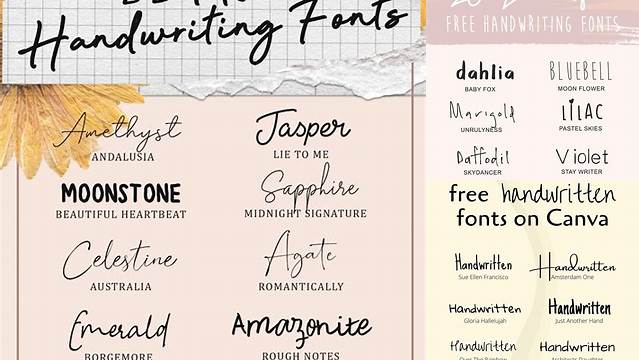
Free Hand-Written Fonts: Download Your Favorites Now!
Hey guys! Are you looking to add a personal touch to your designs? Want to ditch those boring, generic fonts and inject some personality into your projects? Well, you're in the right place! Today, we're diving headfirst into the wonderful world of free hand-written fonts. I'm talking about those fonts that perfectly mimic real handwriting, giving your work that authentic, human feel. From elegant scripts to playful doodles, there's a hand-written font out there for every project imaginable. And the best part? I'm going to show you where you can download free font tulisan tangan so you can start using them immediately! So, buckle up, because we're about to embark on a font-tastic adventure!
Unveiling the Allure of Hand-Written Fonts
Okay, so why are hand-written fonts so darn popular? What's the big deal? Well, think about it. In a world dominated by digital everything, there's something undeniably appealing about the human touch. It's a way to connect with your audience on a deeper level, making your designs feel more relatable and approachable. A hand-written font can instantly transform a project from cold and corporate to warm and inviting. Download free font tulisan tangan can add a unique and personal flair to any design. Hand-written fonts have this amazing ability to inject personality into your work. They can convey a sense of authenticity, creativity, and even a little bit of playfulness. It's like adding a signature to your designs, making them feel more unique and memorable. It is perfect for invitations, posters, social media graphics, and even websites, it really elevates the design aesthetic. These fonts are not just about aesthetics; they are also a powerful tool for storytelling. It helps to emphasize the message. I'm talking about fonts that mimic the flow, the imperfections, and the individuality of real handwriting. A hand-written font can make a design feel less formal and more approachable. So, whether you're crafting a wedding invitation, designing a logo, or creating social media content, hand-written fonts can be your secret weapon for making your work stand out.
Hand-written fonts also offer a versatility that's hard to match. There's a hand-written font style for any project. From elegant calligraphy styles to bold and quirky fonts. These fonts are also incredibly versatile. You can use them in various ways. They pair really well with other fonts, creating a balanced and visually appealing design. It allows you to create a visual style that is both unique and attractive. The options are endless!
The Benefits of Using Hand-Written Fonts
So, you know what hand-written fonts are, but why should you use them? Well, let me tell you: download free font tulisan tangan unlocks a ton of advantages! First, these fonts enhance your design's personality. They add a sense of character that is difficult to achieve with standard fonts. They’re more human-friendly. A handwritten font adds a personal touch to a design. It can convey warmth and friendliness, making your audience feel more connected to your message. Then we have readability. While some handwriting fonts are more decorative than others, many are specifically designed for readability, making your message clear and easy to understand. Not only do they look great, but they are effective as well. When a design looks good and is easy to read, it is naturally more effective.
Let's not forget about visual appeal! Hand-written fonts have a unique visual appeal. They create designs that are attention-grabbing. It’s easy to be more artistic using handwriting fonts. You can use them to create visually attractive materials. The best thing about it is that they're accessible to everyone. You can download free font tulisan tangan that makes them a budget-friendly way to add value and style to any project.
Exploring Different Styles of Hand-Written Fonts
Alright, let's get into the fun part: the different styles of hand-written fonts you can use. The world of hand-written fonts is vast and varied, offering something for every taste and project. From elegant scripts to playful doodles, here's a breakdown of some popular styles to get you started:
First, we have elegant scripts. These fonts are perfect for invitations, announcements, and anything that requires a touch of sophistication. They are the go-to choice. Think of them as the fancy dress of the font world. Then we have casual brush fonts. These fonts perfectly capture the look of brush pens and markers. They're a great option for adding a touch of informality and personality to your designs. Perfect for creating a rustic vibe. On the other hand, we have handwriting fonts that are a true reflection of how they are written. They perfectly mimic real handwriting. They are perfect for creating a personal touch that no other font can offer. They're perfect for anything from personal notes to marketing materials. It's like you are literally writing something by hand, it's that personal! And what about the playful doodle fonts? These fonts are all about fun and creativity. They're perfect for adding a touch of whimsy to your designs. The perfect choice for projects like children's books, social media graphics, and any project that's meant to make people smile. Lastly, we have the bold and textured fonts. These fonts really grab your attention. They’re great for headlines, titles, and any place where you want to make a statement. They are unique! Each style brings its own unique characteristics to the table, enabling you to choose the best one for your needs. There are tons of options for any situation. Finding the perfect fit can change everything. The options are endless. The only limit is your imagination!
How to Choose the Right Hand-Written Font for Your Project
Choosing the right hand-written font is crucial for creating a design that looks professional and appeals to the audience you want to reach. It’s essential to match the font to the project's purpose and your desired message. Download free font tulisan tangan and start with the basics. Here's how to find the perfect match:
Consider the project's tone and purpose. Is it a wedding invitation? You'll want an elegant script. Is it a children's book? A playful doodle font might be the best fit. Your goal is to match the tone to your purpose. Then, think about the target audience. Who are you trying to reach? If you are trying to reach younger people, you can use a fun and playful font. For a corporate project, a more polished handwriting is recommended. It's about the message. Make sure the font's style communicates the message. Will the font be used for headlines, body text, or both? You need to consider the functionality. Some fonts are better suited for headlines, while others are more readable in the body. It’s all about functionality! Experiment with different fonts before deciding. Test the font in the project and see how it looks. Try combining it with other fonts. Don't be afraid to be creative. Once you choose a font, make sure you're fully using it. It's essential to make sure that you are using the font in the best way possible.
Where to Download Free Hand-Written Fonts
Ready to get your hands on some awesome hand-written fonts? Here are some of the best places to download free font tulisan tangan safely and legally:
Google Fonts is a fantastic resource, offering a wide range of high-quality fonts, including many hand-written styles. The site is easy to use. All fonts are free to use for both personal and commercial projects. It’s a no-brainer! You can easily browse and download the fonts you need. Another great choice is Dafont. It has an extensive collection of hand-written fonts. It is super easy to navigate. Most fonts are free for personal use. Always check the license before using a font for commercial projects. Font Squirrel is another great option. This site offers a curated selection of high-quality free fonts. Always double-check the license to ensure commercial use is permitted. Don’t worry, it is totally safe! The most important thing is to choose a place that is legit and safe. Be sure to download your fonts from trusted sources. When you download fonts, always scan them for viruses. You'll want to read the license agreements to ensure you're using the fonts correctly. You can find lots of resources and options to get your fonts, just be careful.
Hand-Written Fonts for Digital Scrapbooking
Digital scrapbooking is perfect for using hand-written fonts, providing a unique and creative space for your memories and stories. Here's how to integrate them:
Be creative with your work. Create an amazing experience. Be yourself. Make your digital scrapbooks unique. Make your work amazing. You can add fonts and quotes. Try to be unique and write your memories. Make the most of your work and be creative!